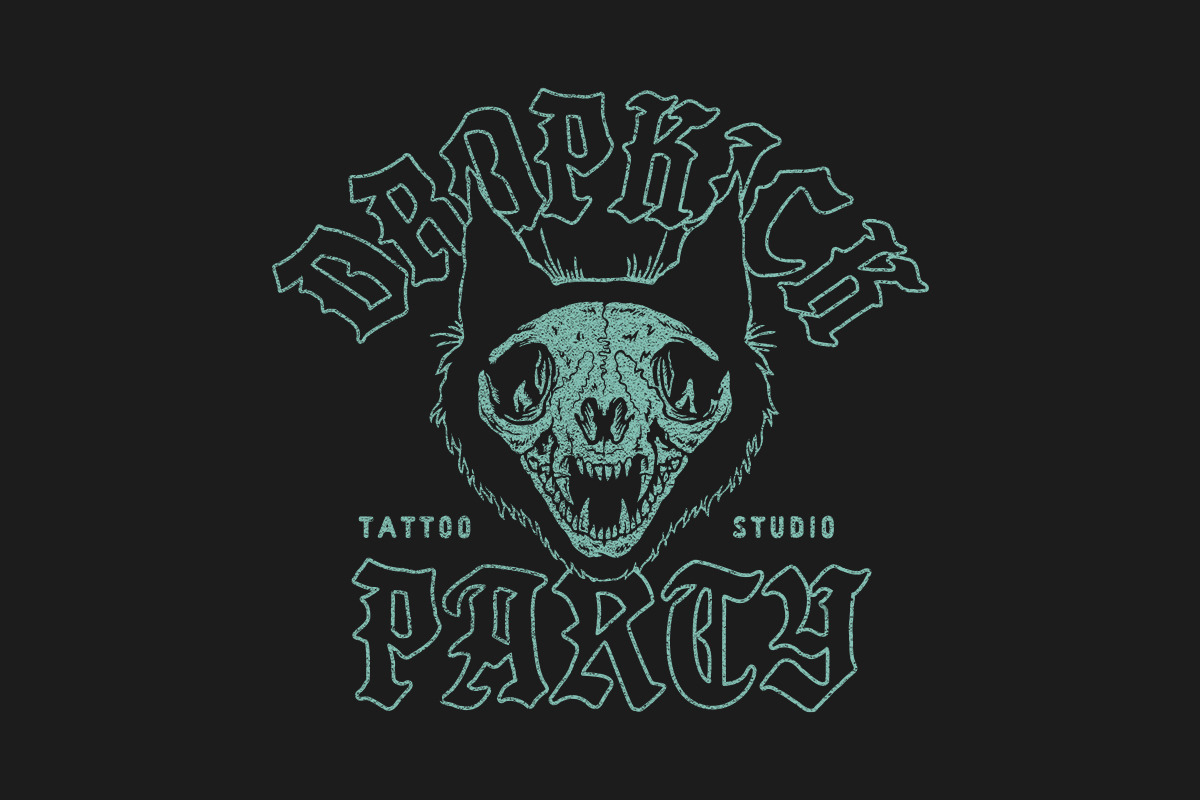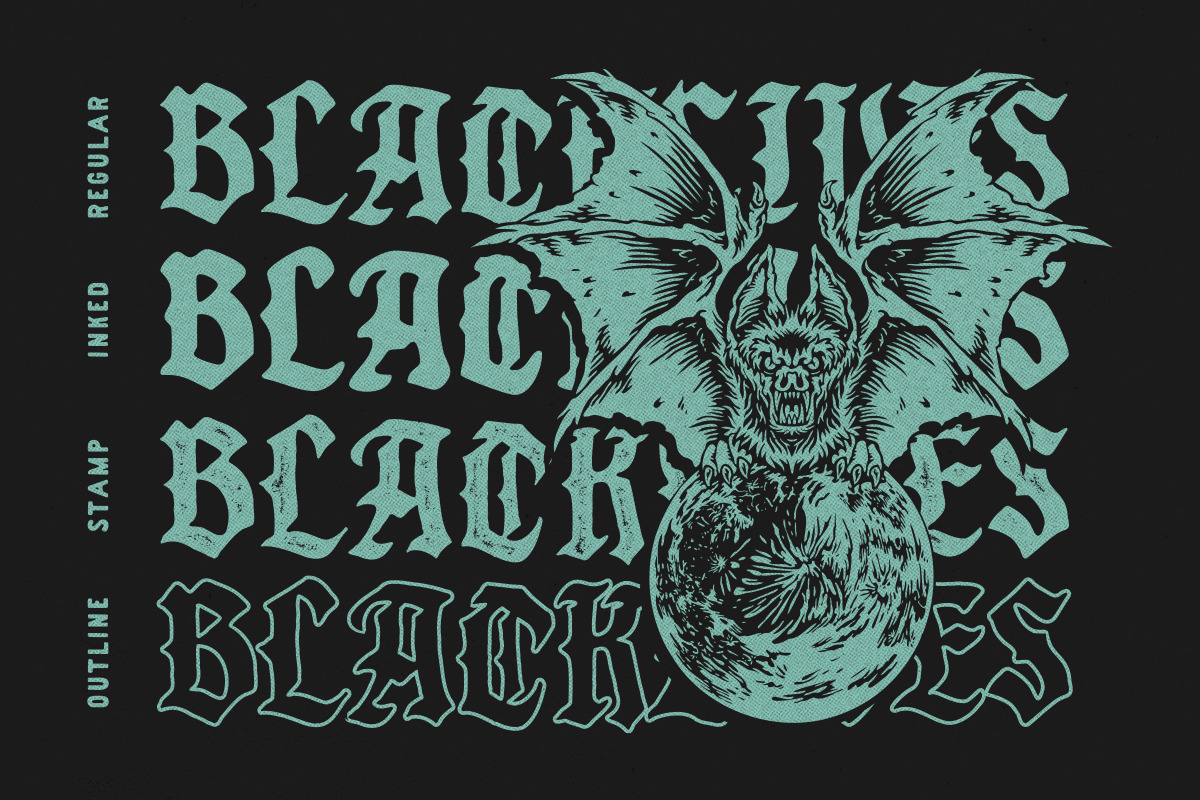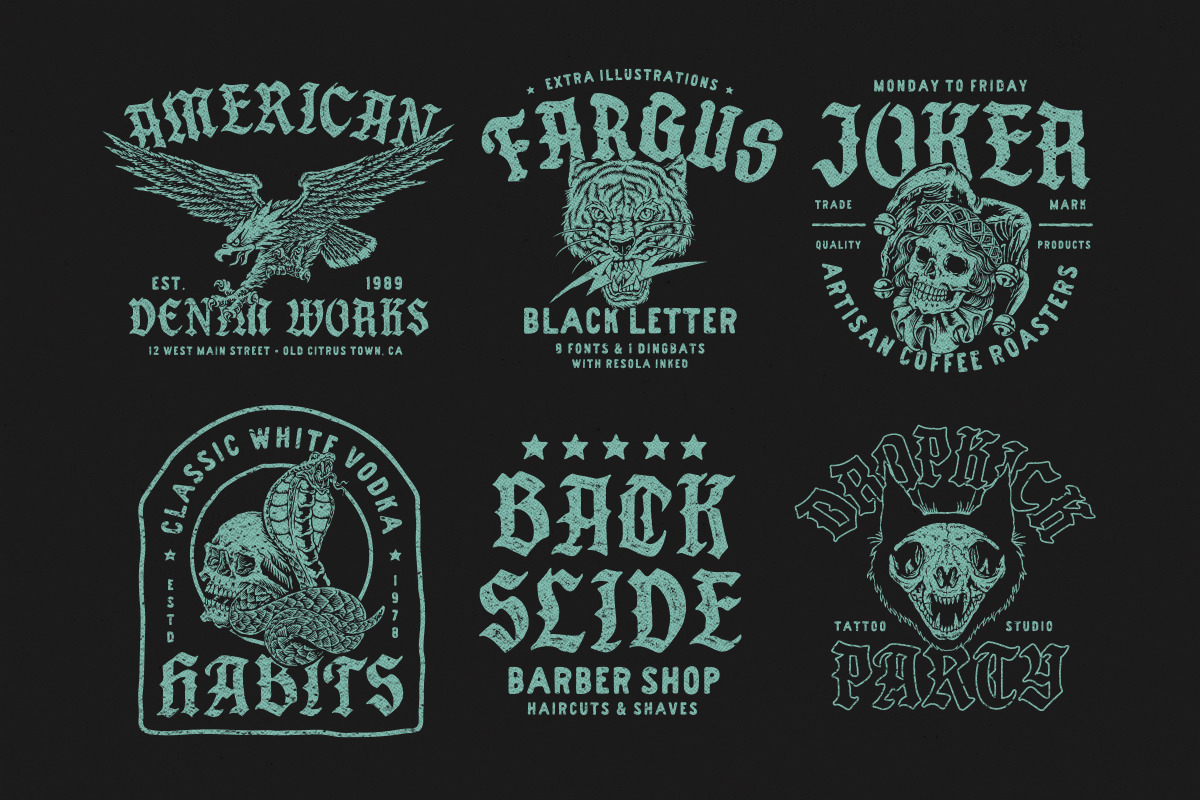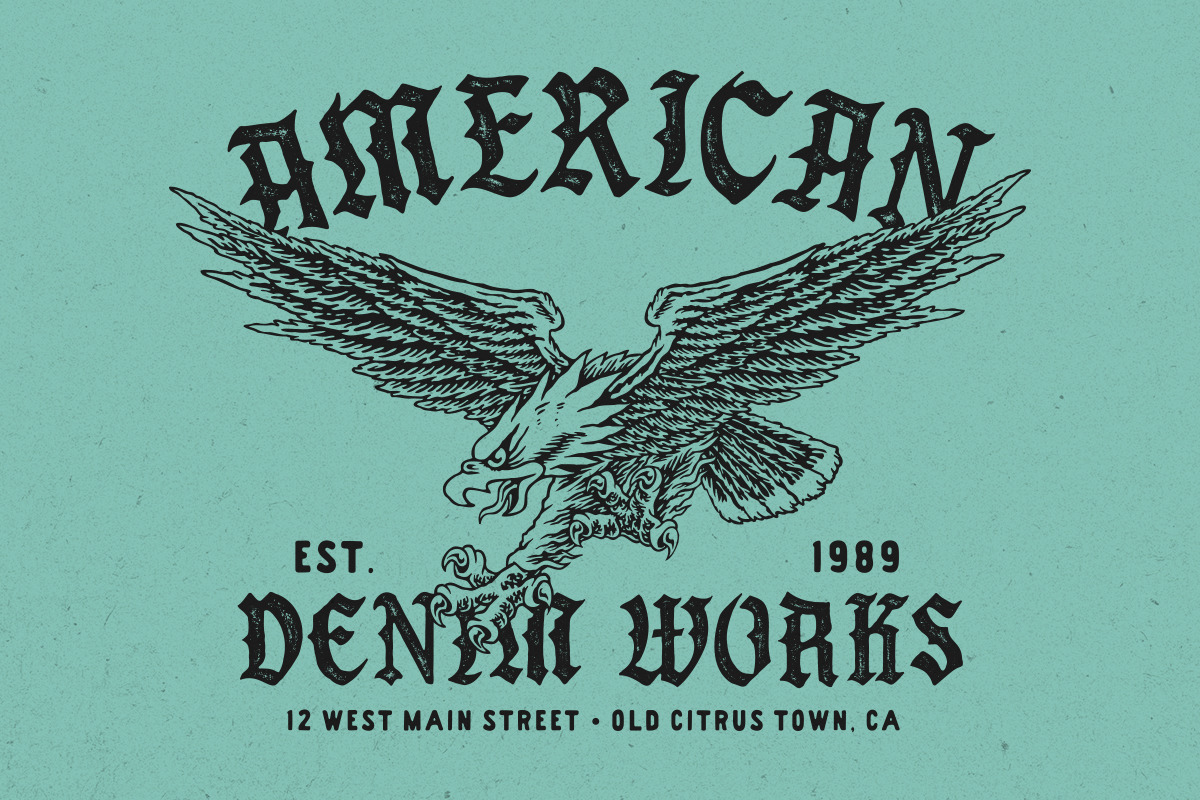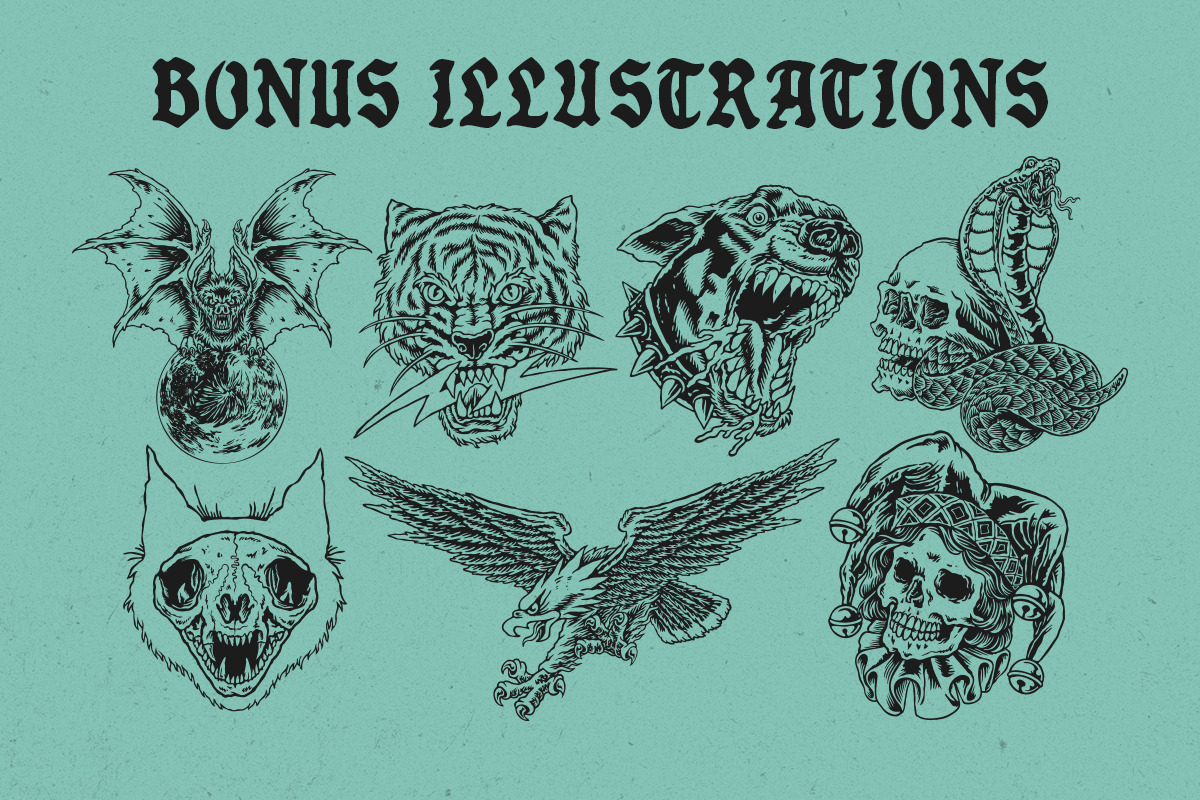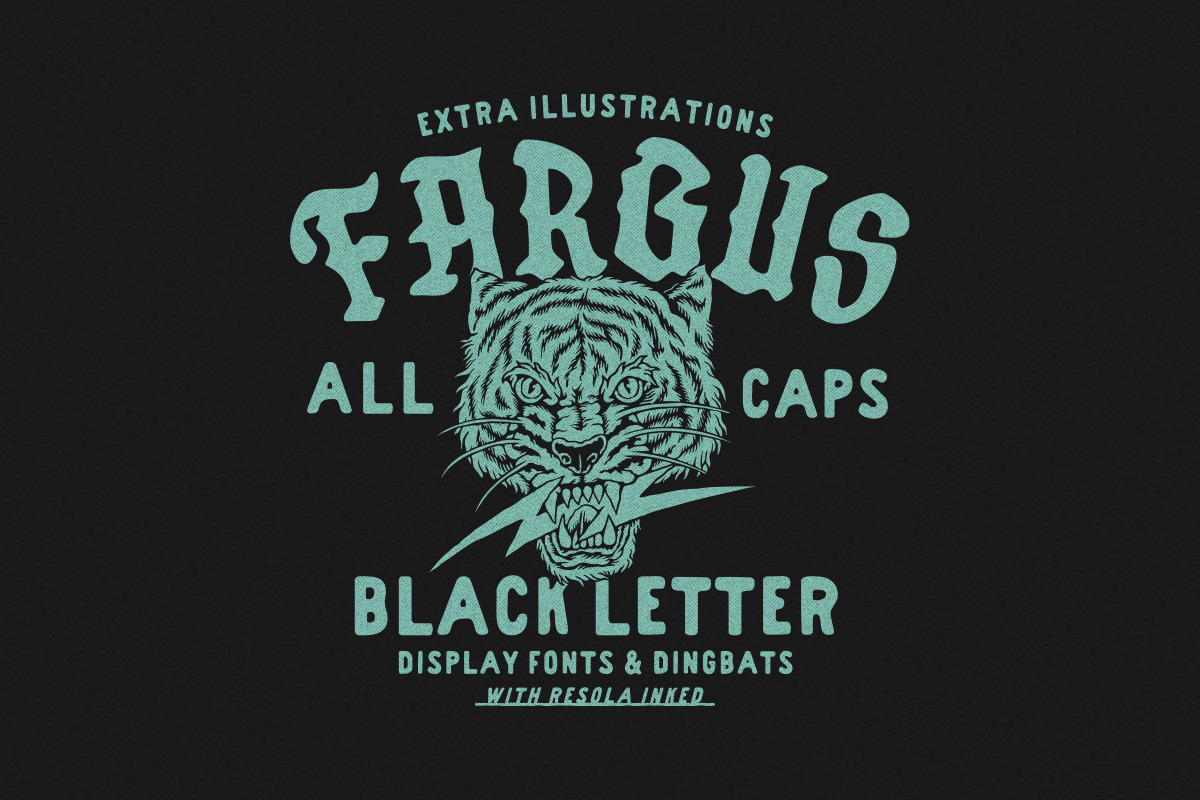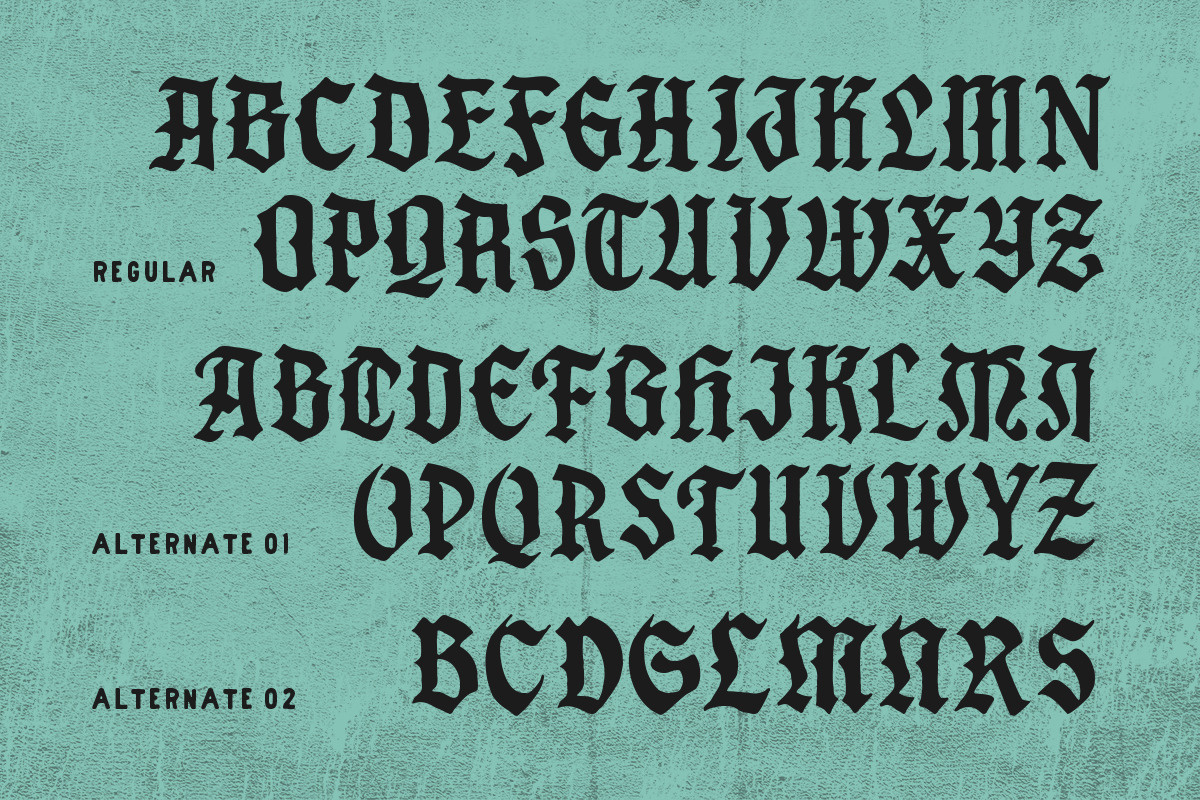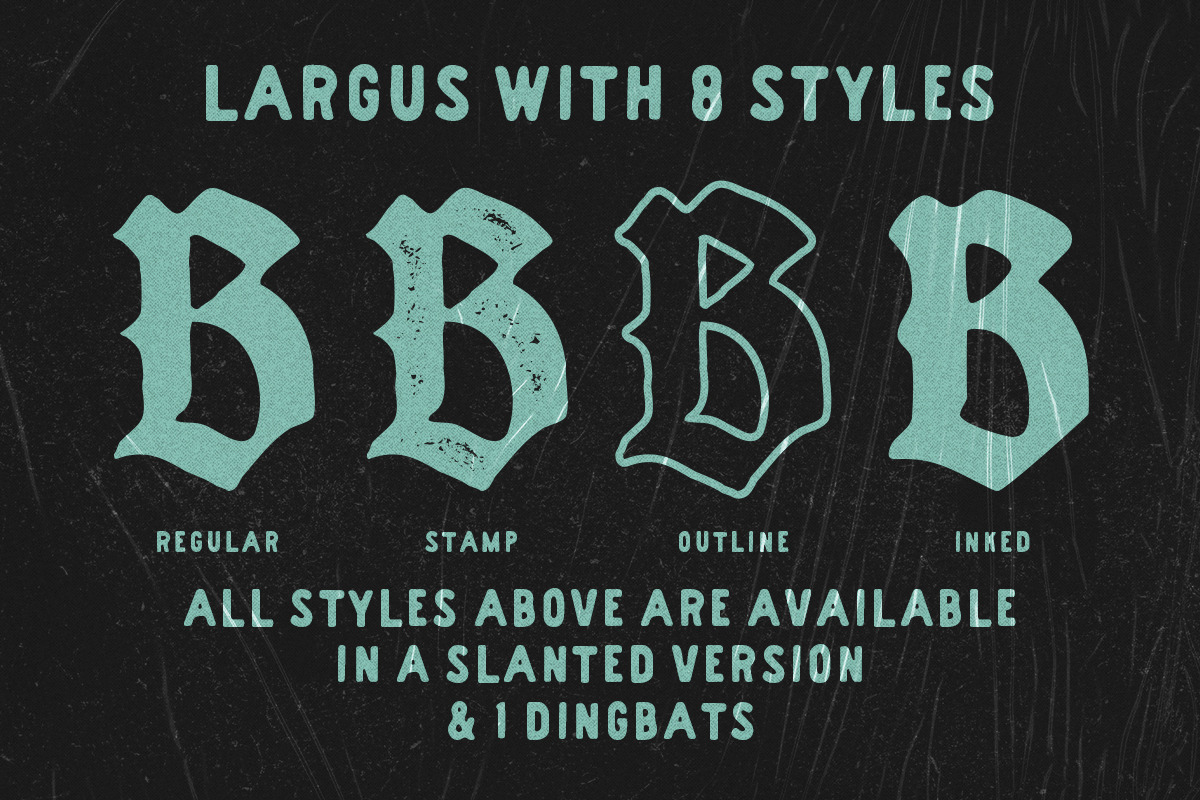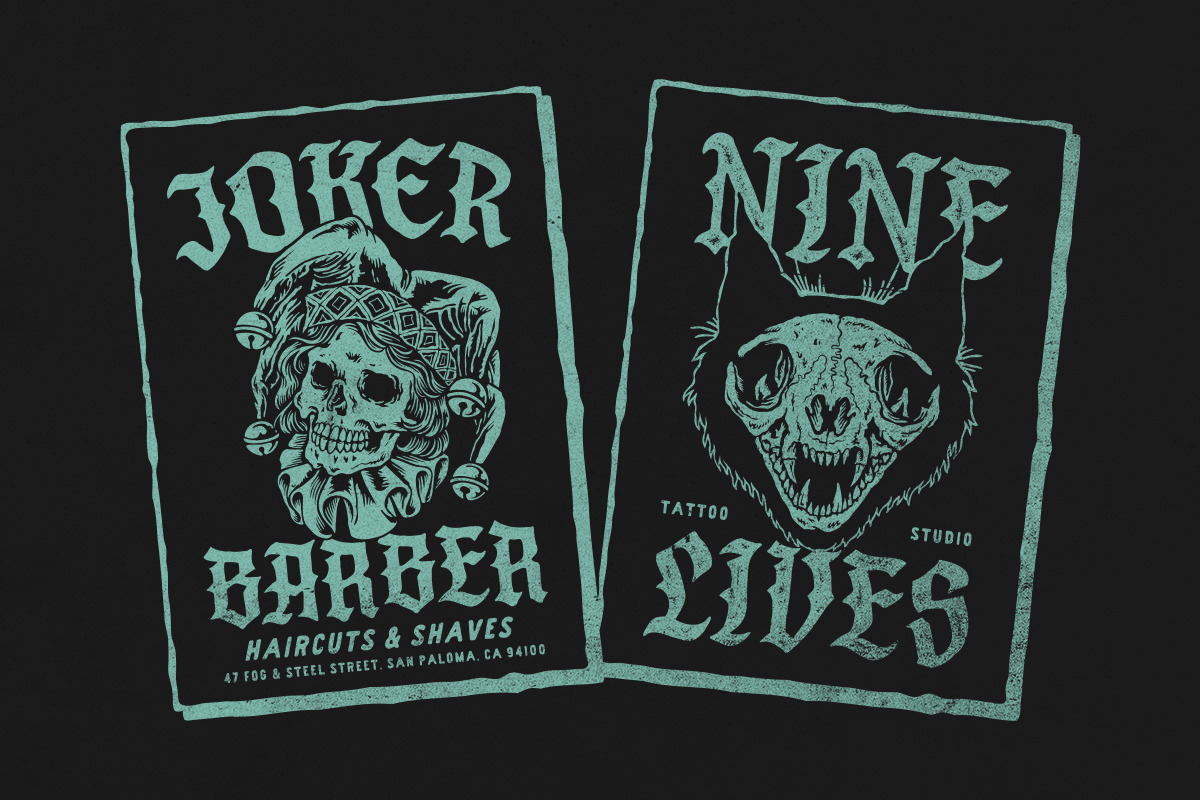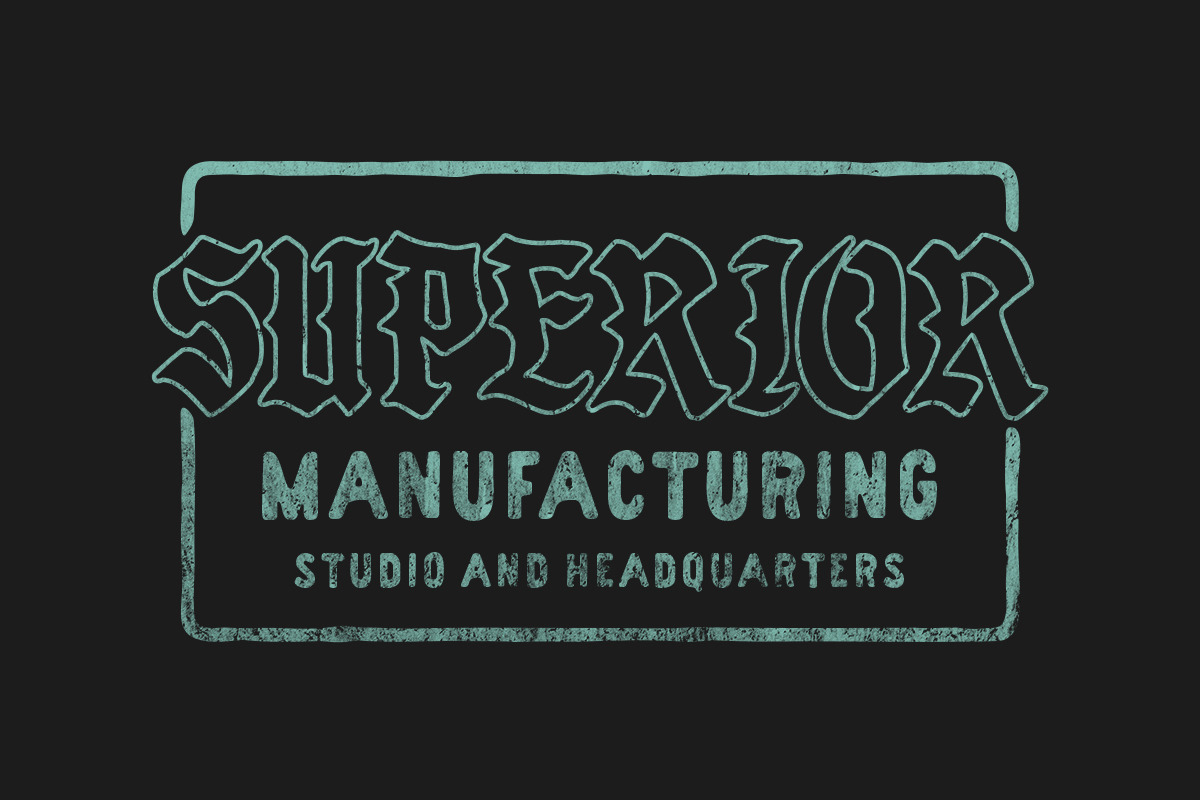
Fargus - Font Pack & Extras!
FARGUS FONT PACK & EXTRA! is a hand drawn blackletter display font inspired by classic tattoo lettering, old barbershop signs, and traditional American designs, this package includes a variety of styles Regular, stamp, outline, ink, and slanted variations.
It comes with only capital letters along with Dingbats, bonus hand drawn illustrations, and a ready-to-use logo design. Perfect for logos, branding, apparel, posters, packaging, album covers, and editorial titles, it's a versatile choice for print and digital projects that require a bold, raw, and timeless vibe.